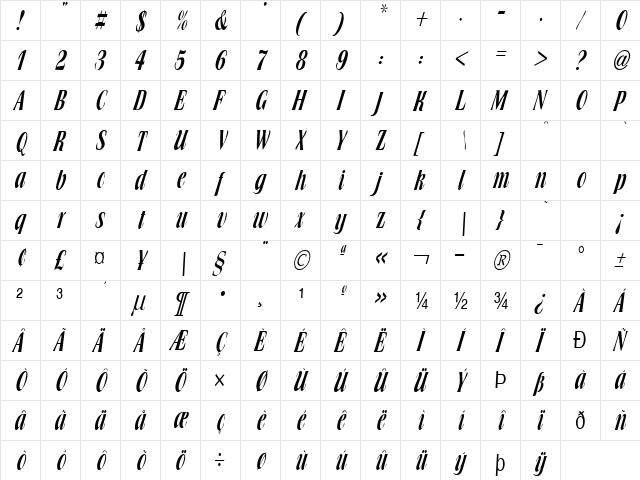
Broach Thin Italic
Design Context for Broach Thin Typeface
Broach Thin offers clean, dependable letterforms without strong stylistic allegiance, making it a practical choice for designers who need flexibility. The slanted form adds forward momentum and visual energy. Its slender proportions lend an understated elegance to any composition.
Pro Tip: Try Broach Thin for annotation and caption copy alongside an upright companion — the contrast in angle creates a dynamic but ordered typographic system.